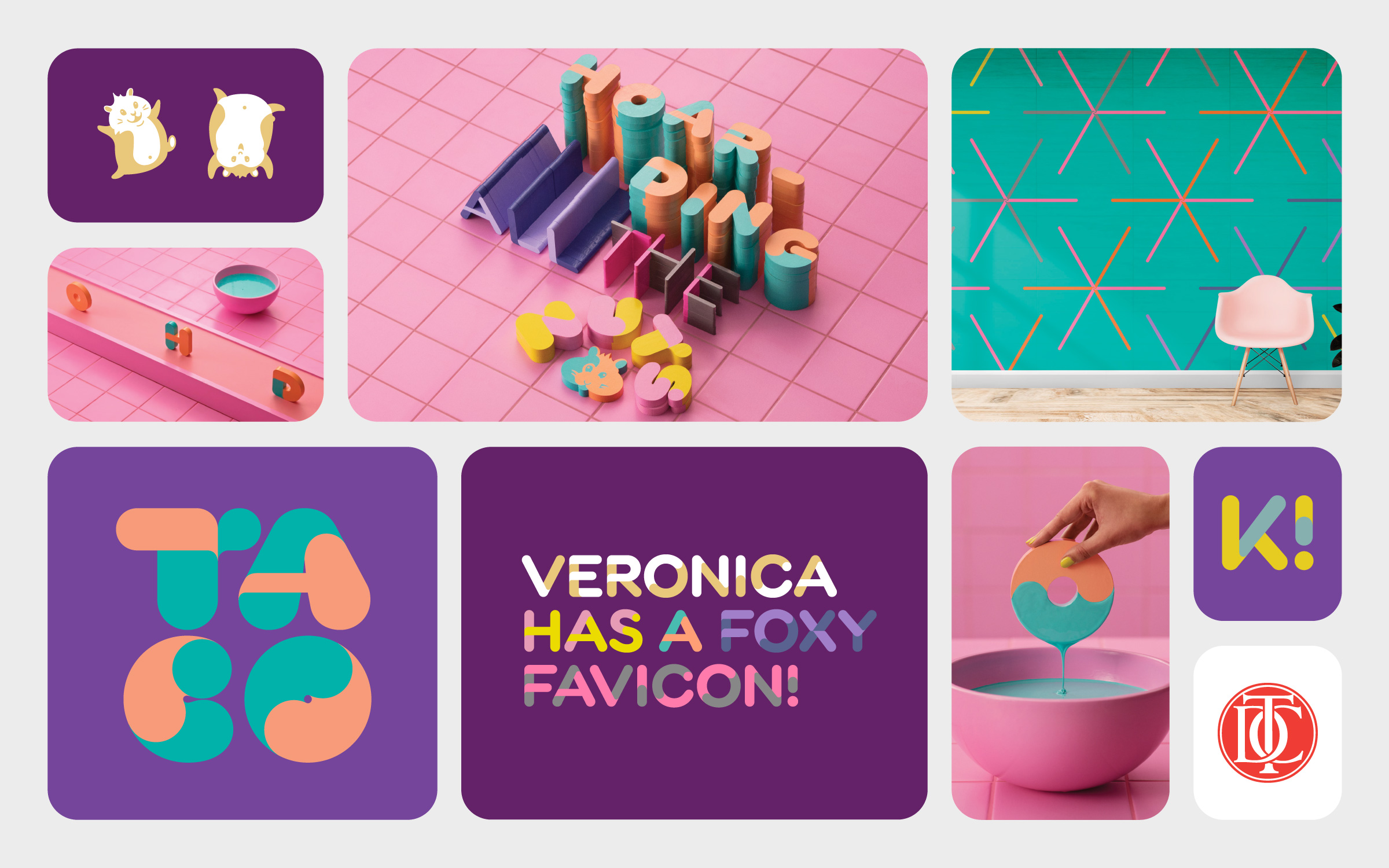
Even though spring has given way to another cold front here in Berlin, our hearts are still warm: our Color Font Hamster has received a great deal of recognition.
Even though spring has given way to another cold front here in Berlin, our hearts are still warm: our Color Font Hamster has just received a great deal of recognition! We also discovered a wonderful use case for Pangea Afrikan and learned something new about our latest font release Push. |
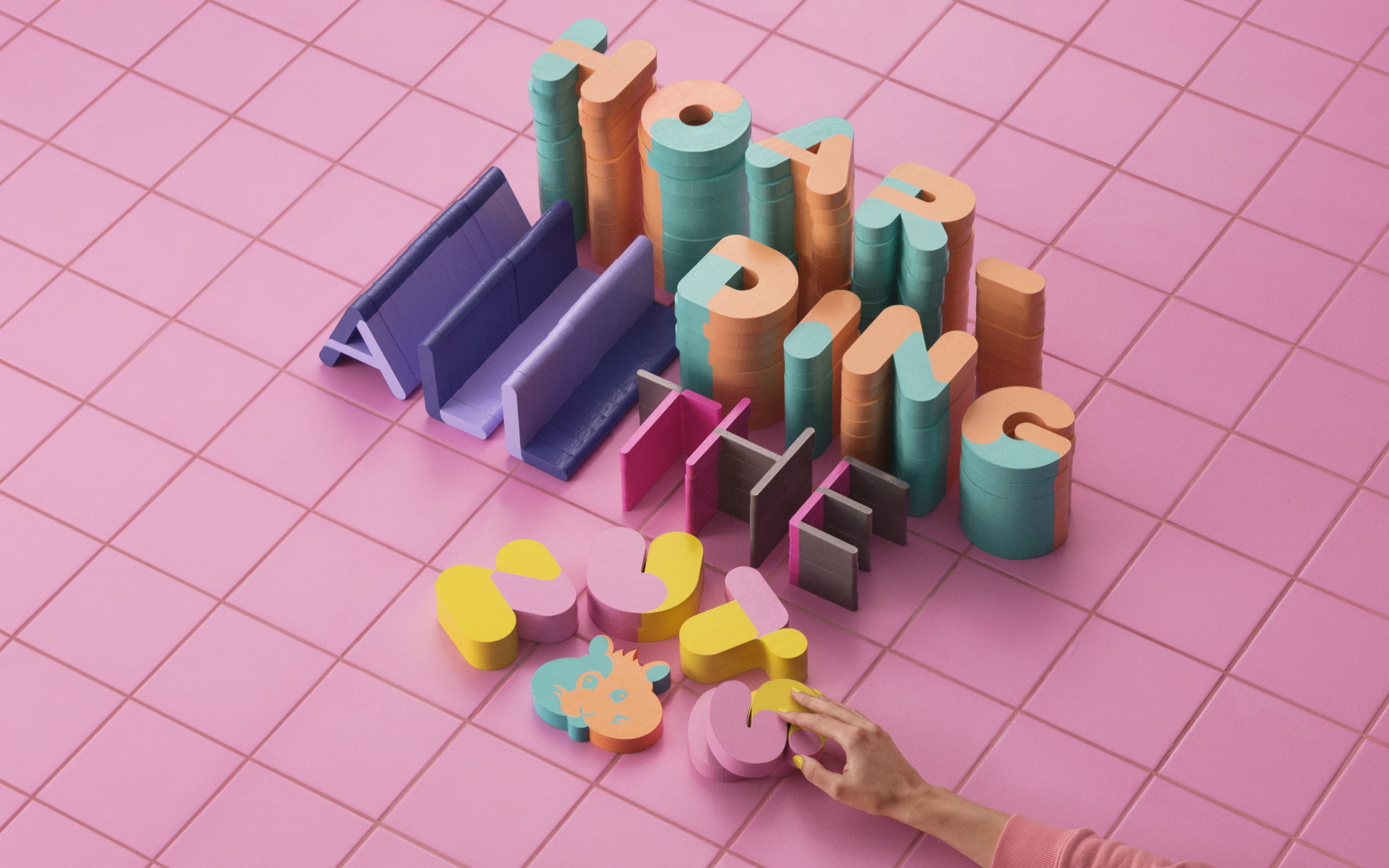 | | The “Hoarding all the nuts” campaign, created by the creative geniuses at SNASK | |
| | Hamster wins a TDC AwardEven the Type Directors Club can’t resist the charm of an adorable hamster, proving cuteness transcends even the strictest standards of typography. When we published our first Color Font Hamster last year, we devised the “Hoarding all the nuts” campaign together with the creative geniuses at SNASK. Hamster has now melted hearts at the TDC: The prestigious “Certificate of Excellence” in the 70th Type Directors Club New York competition. We are ecstatic and are doing a Hamster Dance to celebrate the day. Designer Joe Stitzlein has achieved a unique feat: Exactly a quarter of a century after his first TDC award for the ITC Tactile typeface, he can put the prize on his shelf for the second time. So we are already planning a congratulatory card for 2049, when he is expected to win his third TDC Award. So if, like us, you feel like giving Hamster a cuddle, we recommend trying out the colorful Trial Fonts. | |
| | New logo, new visual language and a new house font: the African version of Pangea Text for the African Film & Art Festival | |
| | Pangea Afrikan headlines a cultural festivalThe fourth annual African Film & Art Festival took place in 2023 in Providence (Rhode Island, USA). Since its inception, the event has become firmly anchored in the cultural calendar of the East Coast and is dedicated to both contemporary African Cinema and Traditional Music. Last year, the organizer gave its brand a visual identity for the first time with a new logo, new visual language and a new typeface: the African version of the inclusive font family Pangea Text. As Osmond Tshuma, Founder and Designer at South African design studio Mam’Gobozi Design Factory, describes the reason for choosing Pangea Text as follows: “Choosing a font was vital because we required one that could also handle Hausa, Yoruba, Igbo, or Lingala movie or song titles. Additionally, the icon we had created for the event was geometric, and Pangea Afrikan complimented it quite well. A perfect match.” Pangea Afrikan is an important milestone in the efforts of its designer Christoph Koeberlin to create a sustainable and unifying typeface that challenges Western conventions. More often than not the character sets of most successful fonts only represent European and American alphabets, yet Pangea Afrikan is included for free as part of the complete Standard license. | |
In our last newsletter, we launched our latest typeface, Push by Christine Gertsch and we have been so delighted by the reaction and response to that. Over on the Identifont blog, David Johnson-Davies has interviewed Christine about the inspiration behind her design, the challenges when creating it and the unique characteristics of Push that set it apart from other typefaces. German readers should also have a look at the comprehensive article about both the design of Push and the marketing campaign we did together with Rocket & Wink at PAGE Online. ↗ |
We are fans of author, designer and all-round amazing and inspiring type enthusiast Elliot Jay Stocks, so we were over the moon to hear about his brand new book which is out now! The Universal Principles of Typography is a one stop shop that covers everything you need to know about typography and how to use it and offers a plethora of advice, tips and type pairing suggestions. Plus: it features some of our work. ↗ |